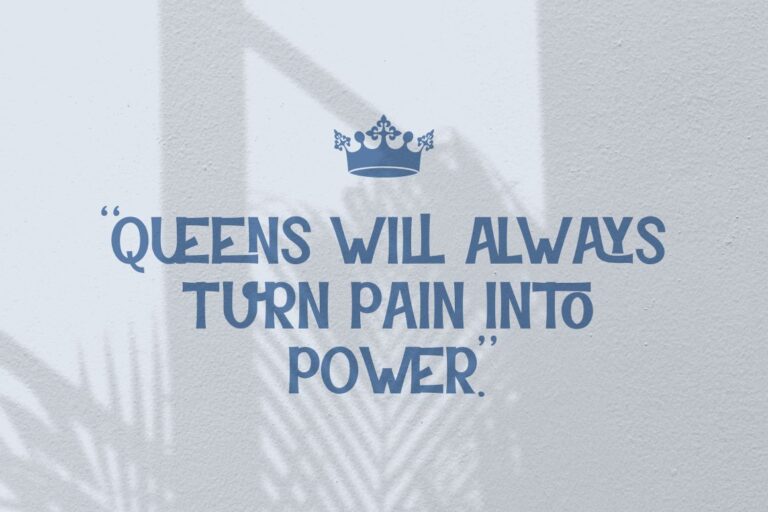
Typography is one of the most important elements in a successful t-shirt business. While graphics and illustrations often receive most of the attention, the right font can transform a simple design into a best-selling product. Whether you’re creating streetwear, vintage apparel, niche community merchandise, or lifestyle fashion brands, typography plays a major role in how customers perceive your products.
The best font for t-shirt business projects should do more than look attractive. It should communicate personality, strengthen brand identity, improve readability, and help products stand out in a crowded market. A strong typeface can become a signature visual element that customers instantly recognize across apparel, packaging, social media, websites, and promotional materials.
From playful display fonts and vintage-inspired lettering to freestyle scripts and tribal-inspired typography, choosing the right font helps create stronger apparel designs and improves the perceived value of your products. Many successful clothing brands rely on distinctive typography as one of their core branding assets.
In this guide, we’ll explore seven of the best fonts for t-shirt businesses and explain how each can support different apparel niches and branding strategies.
Initial Suggestion
Before choosing a font, define the identity of your clothing brand.
Match Typography to Your Audience
Different audiences respond to different design styles.
Examples:
- Streetwear customers prefer bold and expressive fonts.
- Vintage brands often use retro-inspired typography.
- Outdoor brands may benefit from rugged display fonts.
- Youth-oriented brands often use playful and energetic lettering.
Think Beyond T-Shirts
Your font should work across:
- T-shirt graphics
- Clothing tags
- Packaging
- Social media
- Website banners
- Brand logos
- Promotional materials
Prioritize Readability
A creative font should still remain readable from a distance. Strong visibility often contributes to better apparel sales and stronger brand recognition.
Build a Consistent Brand
The best clothing brands maintain consistent typography across all customer touchpoints, helping create a memorable visual identity.
1. Chubzy Funk – Fun Fat Font
Chubzy Funk is a bold and playful display font designed to capture attention instantly. Featuring chunky letterforms, rounded edges, and a fun retro-inspired personality, this font creates highly visible t-shirt graphics that stand out on store shelves and online marketplaces. The thick stroke weight ensures excellent readability while maintaining a cheerful and approachable appearance. Its energetic character makes it particularly effective for brands targeting younger audiences, pop culture enthusiasts, and lifestyle apparel markets.
Pros
- Highly visible on apparel
- Fun and memorable personality
- Excellent readability
- Strong merchandising potential
- Streetwear brands
- Graphic t-shirts
- Youth fashion
- Pop culture merchandise
- Lifestyle apparel
2. Ancient Legend – Nomadic and Tribal Font
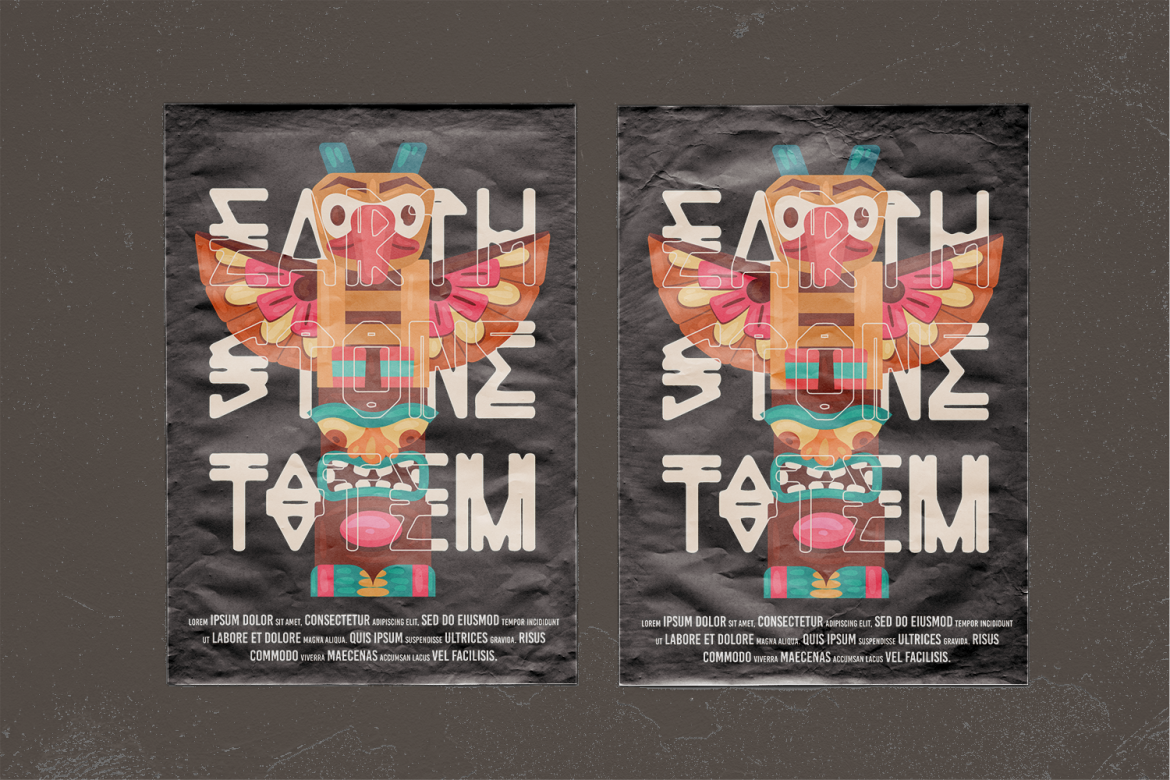
Ancient Legend combines tribal-inspired aesthetics with powerful display typography. The handcrafted appearance, geometric structures, and cultural influences create a distinctive visual identity that feels authentic and bold. This font works exceptionally well for outdoor brands, adventure-themed apparel, festival merchandise, and clothing lines that embrace storytelling and heritage-inspired designs. Its unique character allows apparel businesses to differentiate themselves in highly competitive markets.
Pros
- Unique tribal-inspired design
- Strong visual impact
- Distinctive brand personality
- Excellent headline performance
- Outdoor apparel
- Adventure brands
- Festival merchandise
- Cultural clothing lines
- Tribal-inspired fashion
3. Mega Boldy – Playful Bold Font
Mega Boldy delivers a cheerful and energetic personality through chunky, rounded letterforms and playful curves. Inspired by comic books and retro pop art, this font creates an instant sense of fun and positivity. Its bold construction makes it highly effective for apparel graphics where visibility is critical. Whether used for slogans, typography-based designs, or branded merchandise, Mega Boldy provides strong visual energy.
Pros
- Bold and playful appearance
- Excellent readability
- Strong visual energy
- Versatile display font
- Cartoon-inspired apparel
- Family-oriented brands
- Children’s clothing
- Fun graphic tees
- Creative merchandise
4. Kitchen Knife
Kitchen Knife is a quirky hand-drawn display font featuring irregular outlines and an urban street-style personality. The handcrafted appearance creates authenticity while maintaining a modern and trendy aesthetic. Its unique baseline movement and alternative character options provide flexibility for designers who want apparel graphics with a custom hand-lettered feel.
By selecting typography that aligns with your target audience and maintaining consistent branding across all platforms, you can create stronger t-shirt designs, build a recognizable fashion brand, and increase the long-term value of your clothing business.